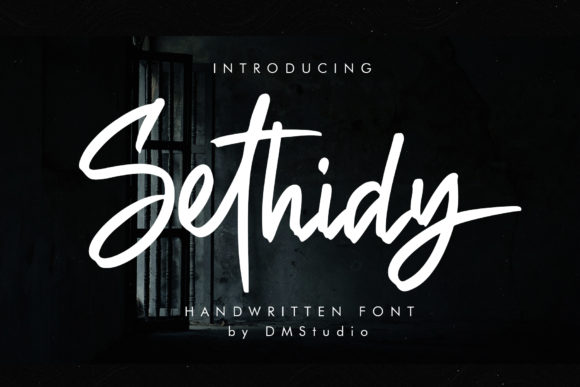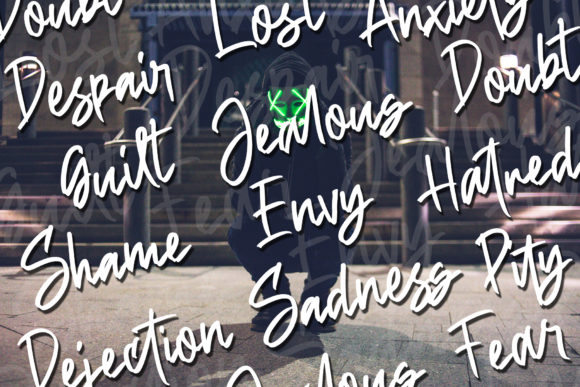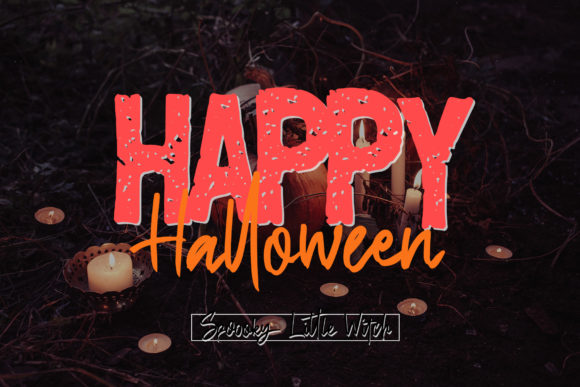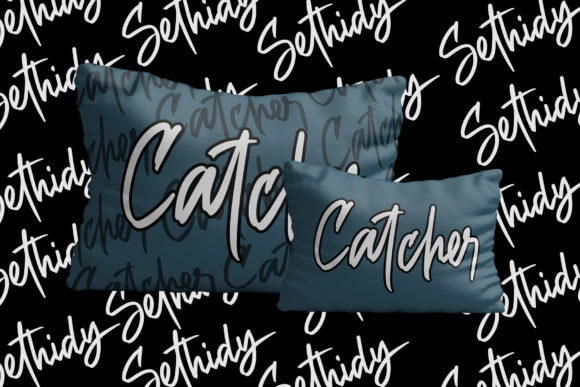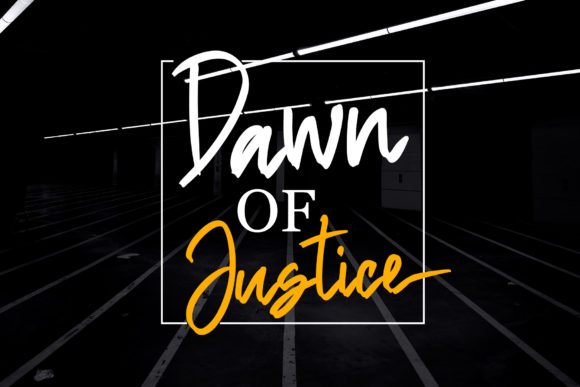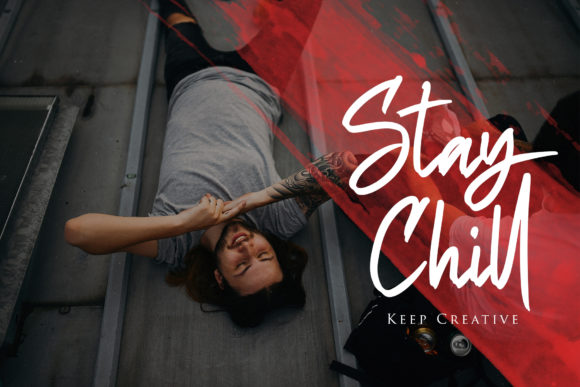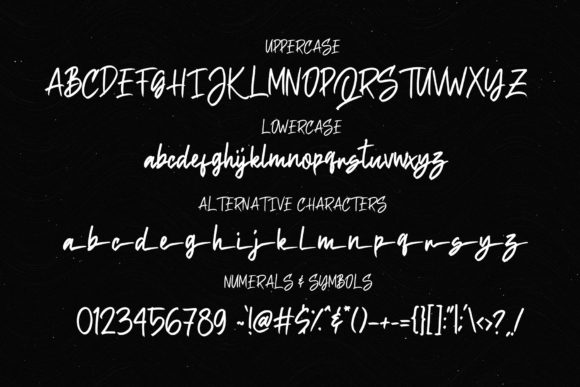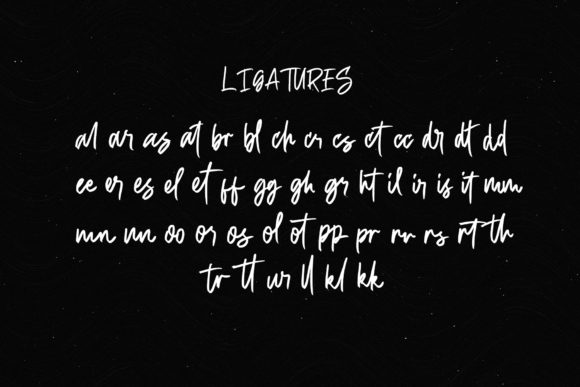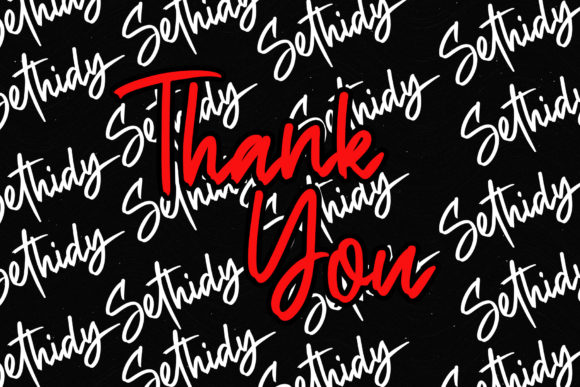
Sethidy Font
Sethidy is a casual, yet elegnat handwritten font with a discrete charm. Get inspired by its unique style, and add a personal touch to any design project with this one-of-a-kind typeface!